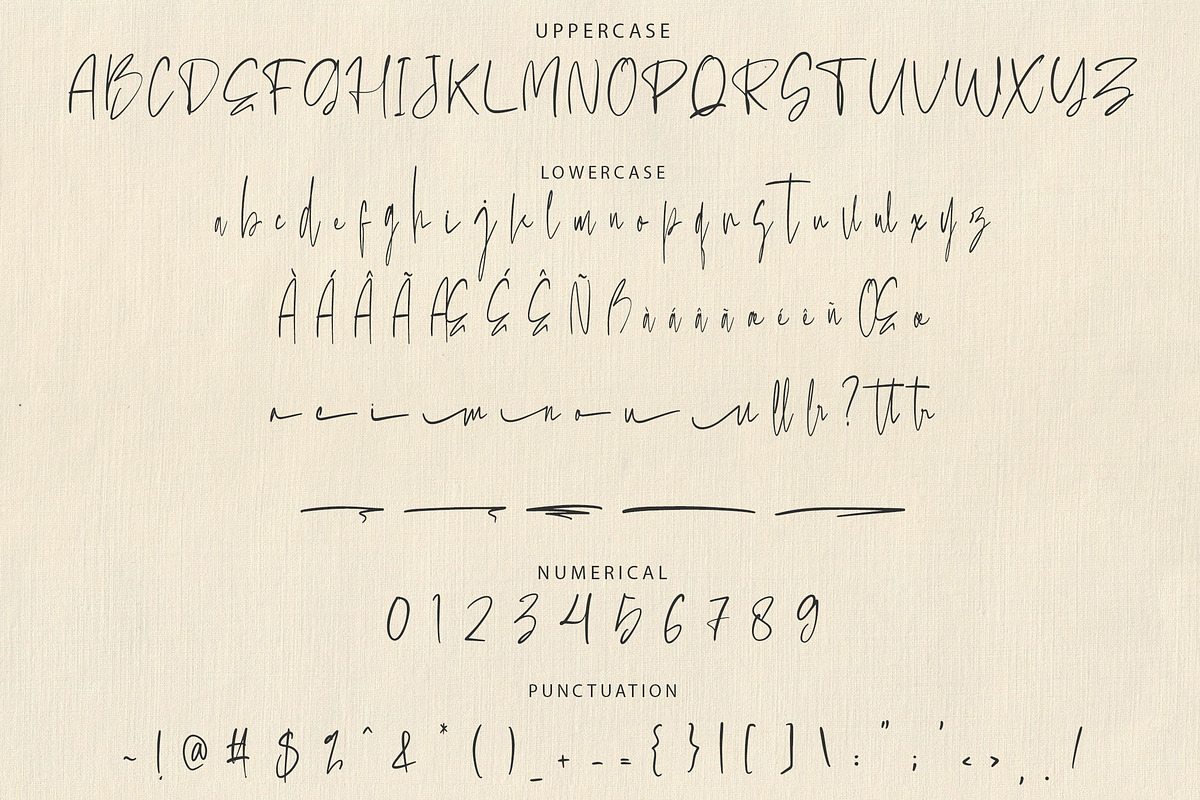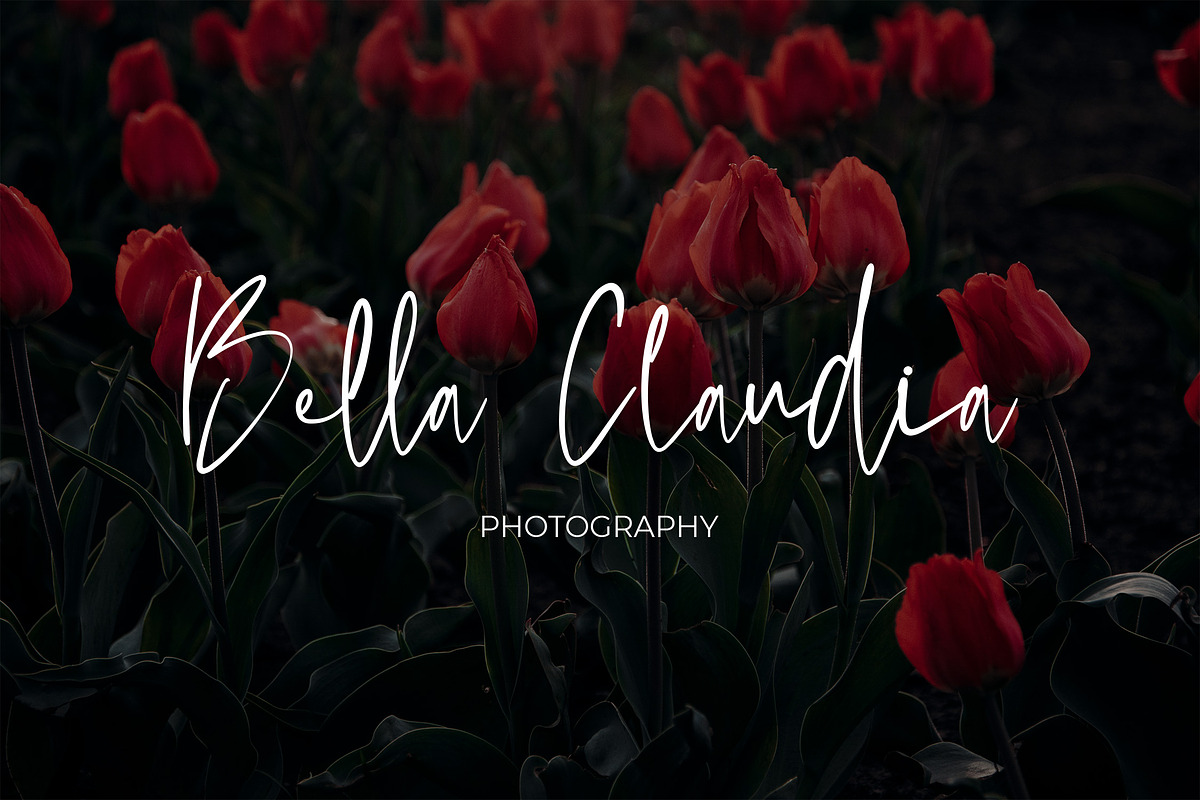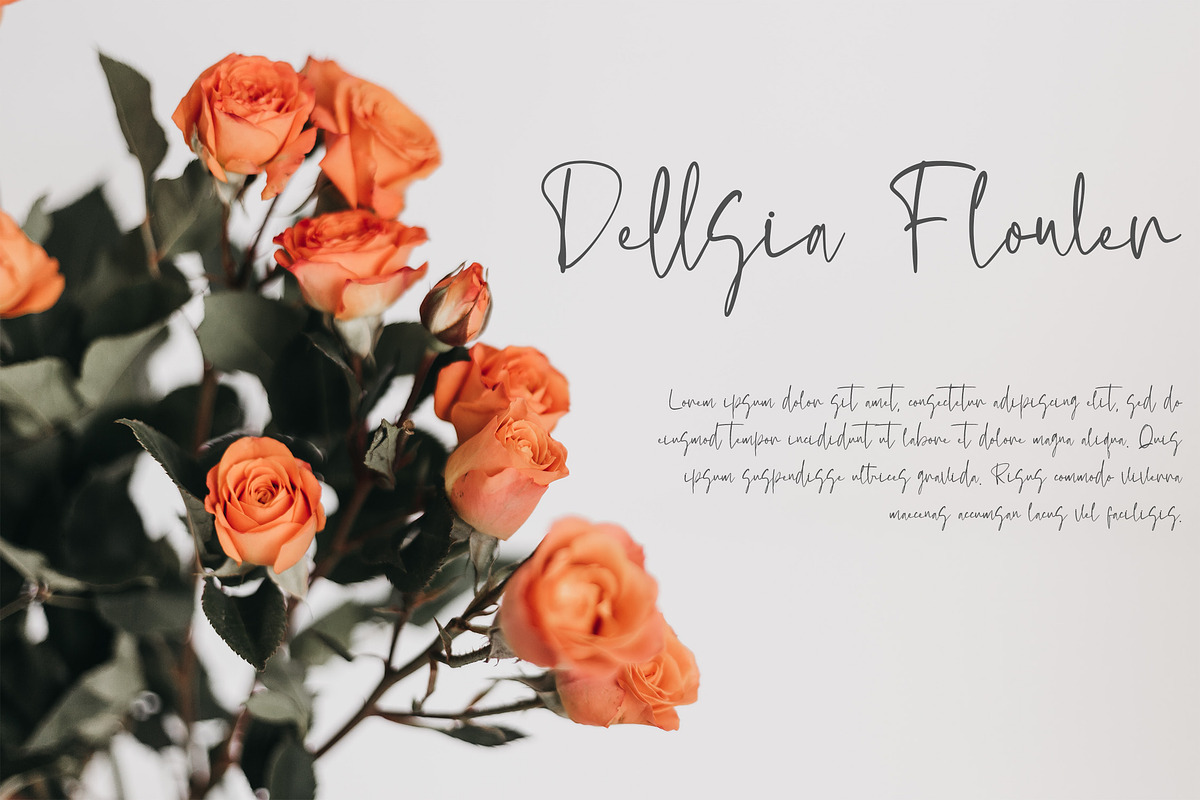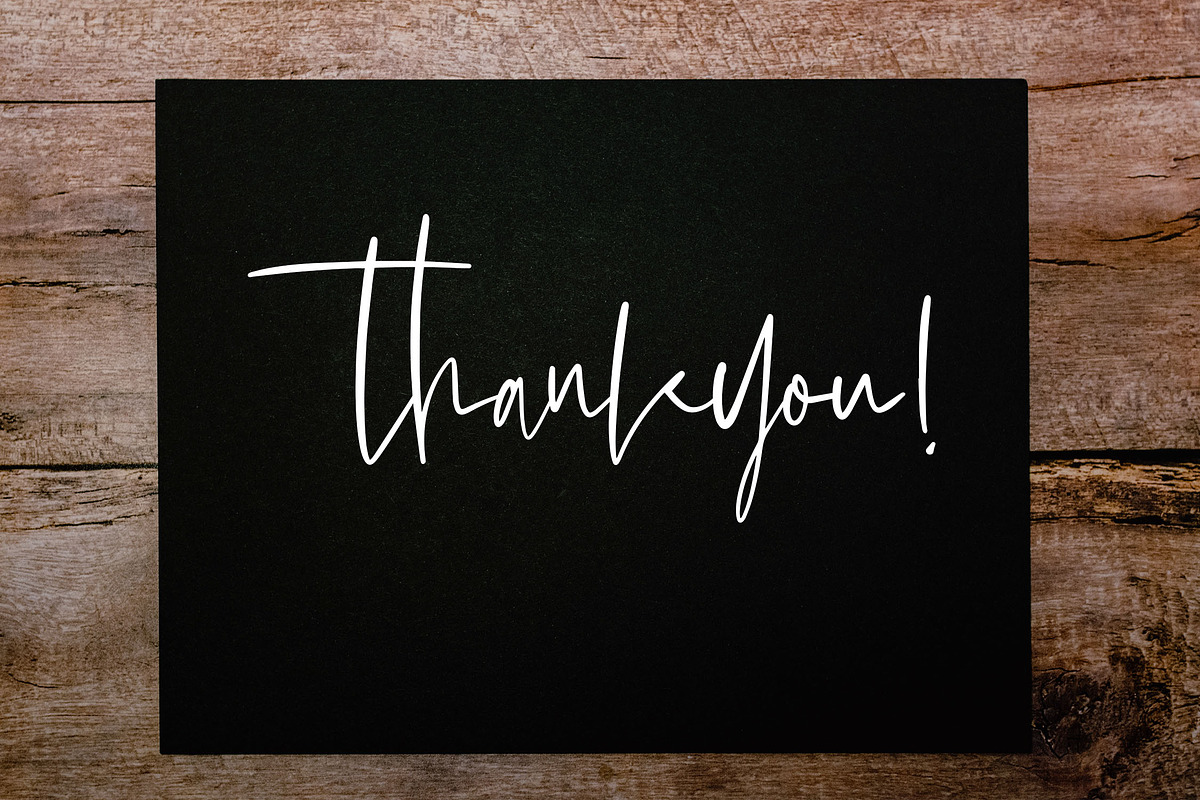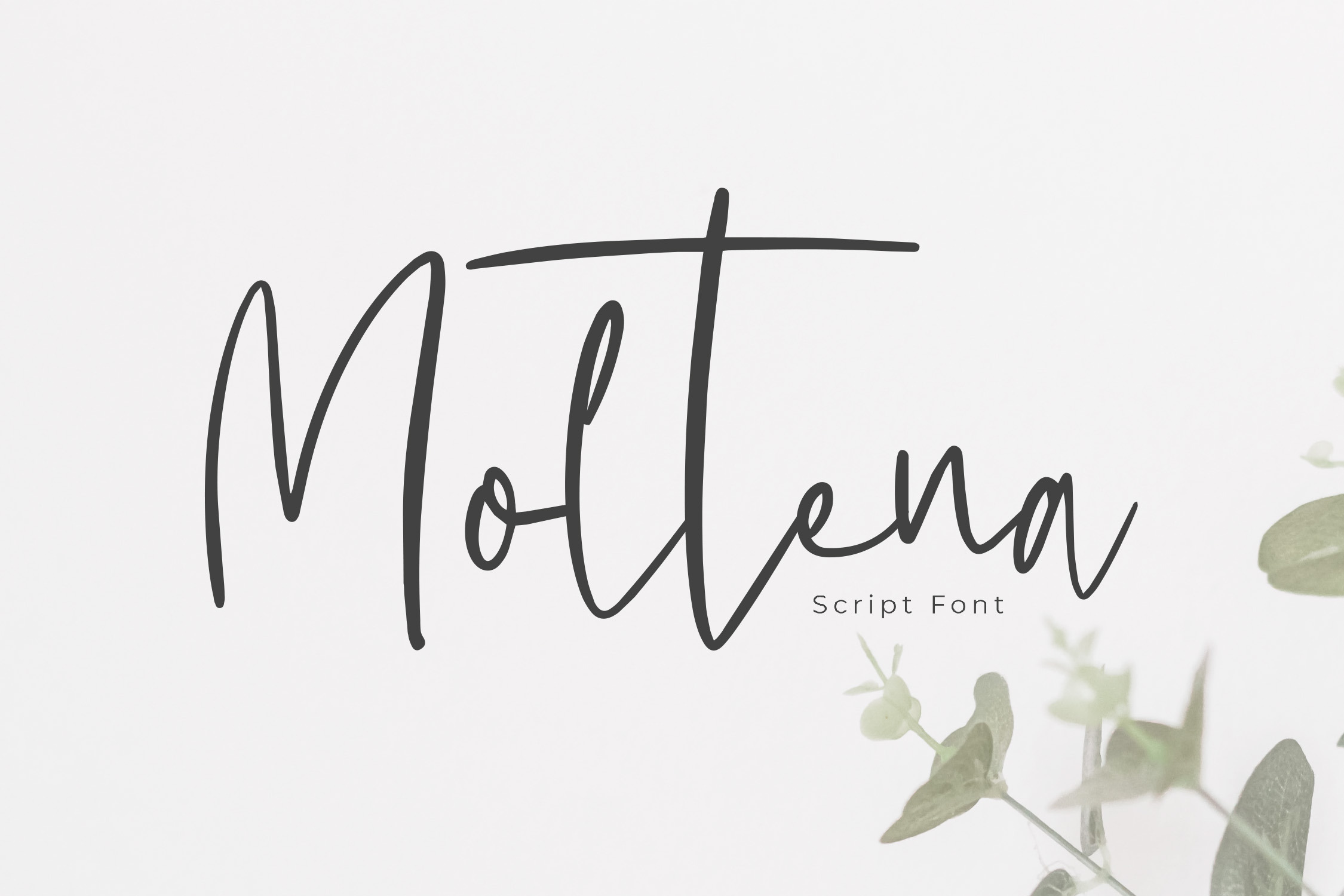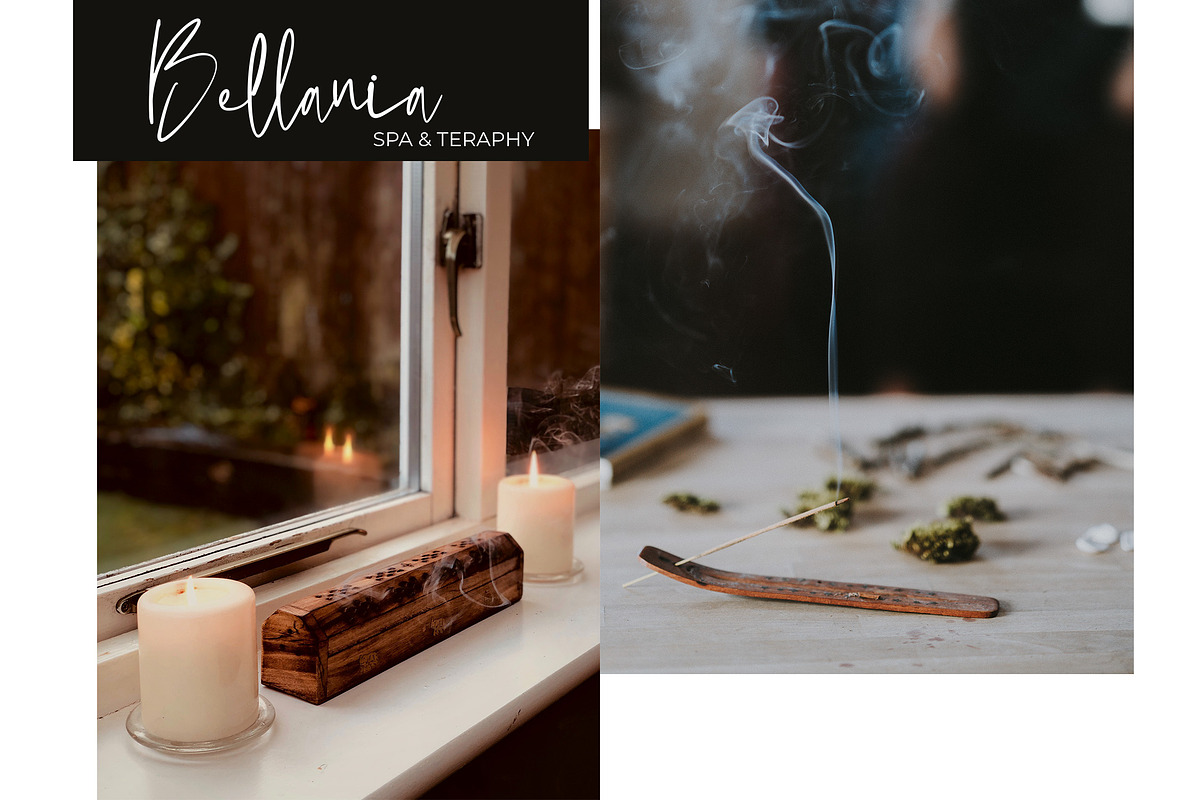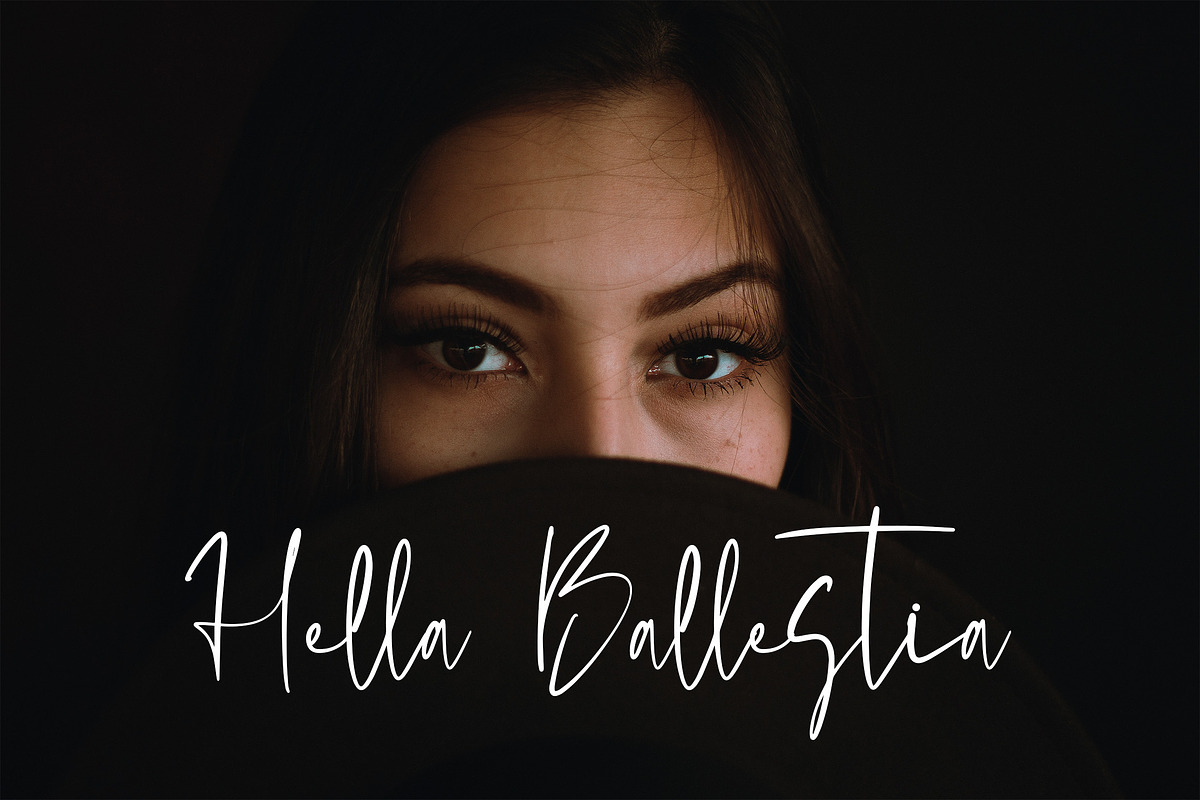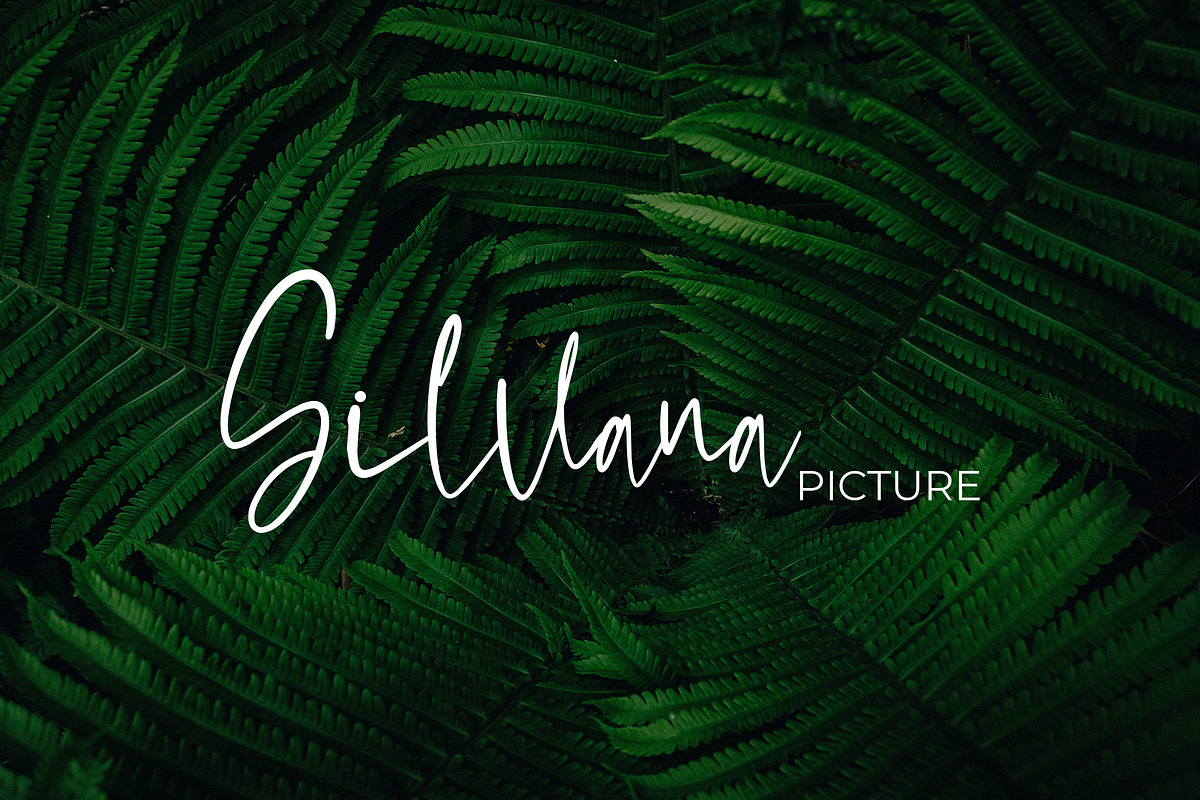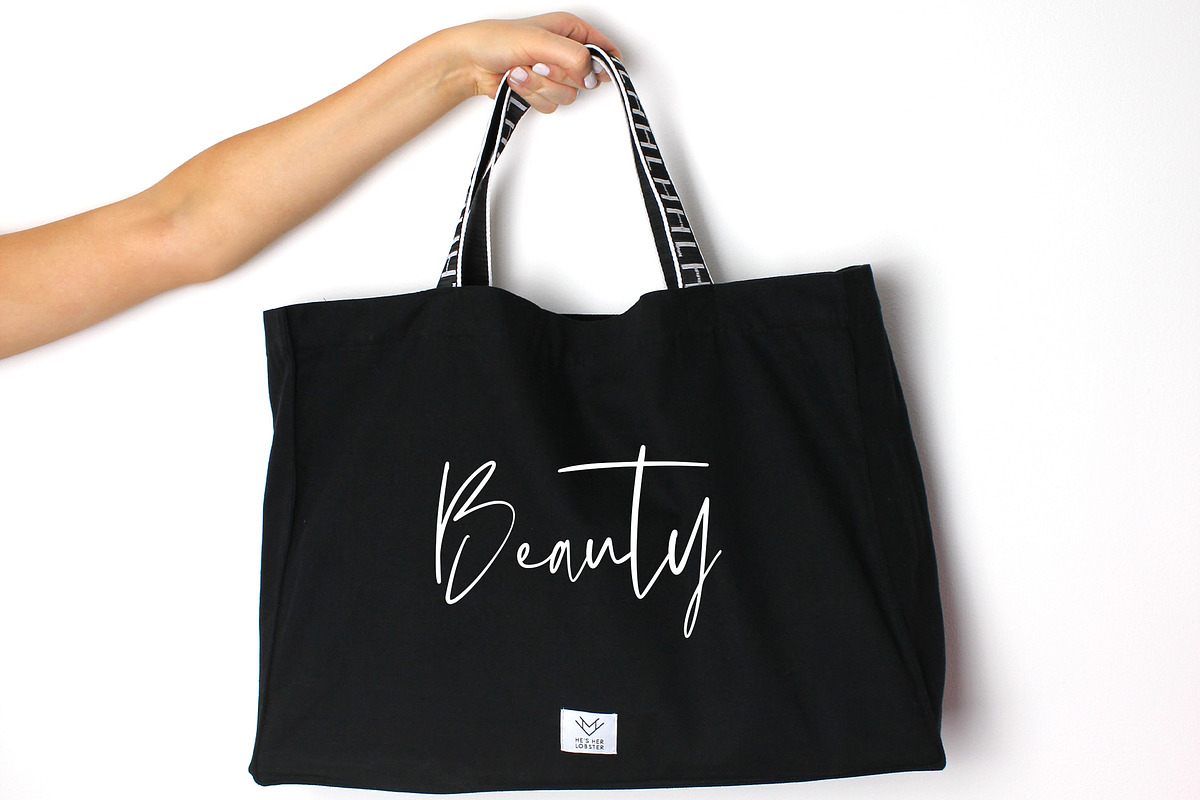
Moltena Script Font
Moltena: Elegant Handbrush Script Font
Introducing Moltena, a script font with an elegant handbrush style, designed to bring unique character and sophistication to any project. Its graceful, flowing strokes add a refined touch to your designs, making it ideal for branding, packaging, invitations, and more. Moltena’s distinctive style enhances the visual appeal of your products, creating an eye-catching and polished look.
- Ligatures & Stylistic Alternates: Adds customization and elegance to your text.
- Swashes & Multilingual Support: Perfect for international projects with extra decorative flair.